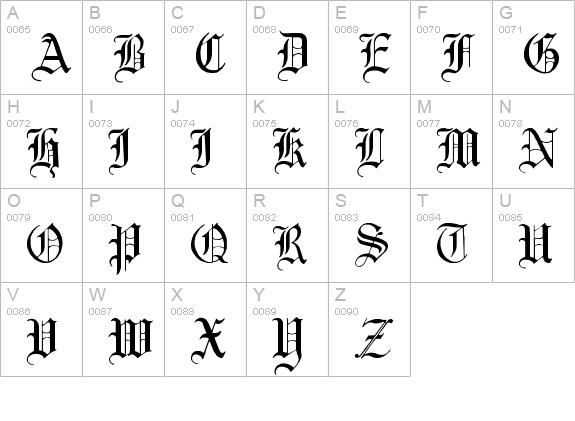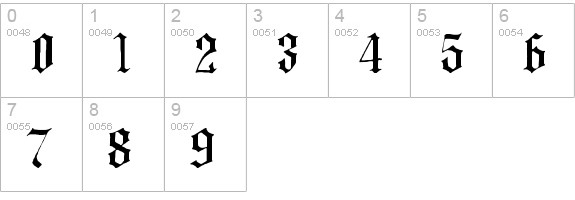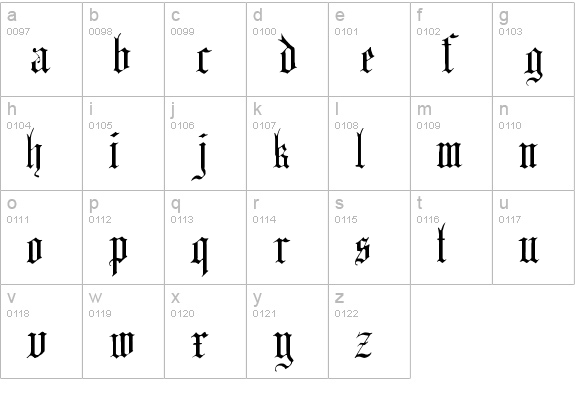
Introducing the captivating allure of English Gothic, a remarkable 17th-century font that effortlessly transports you to a bygone era of mystery and enchantment. With its intricate and ornate letterforms, this stunning typeface pays homage to the rich history of Gothic architecture and literature, evoking a sense of grandeur and elegance. Every curve and flourish in English Gothic tells a story, each letter meticulously crafted with a deep appreciation for the artistry of calligraphy. The bold strokes and delicate details seamlessly merge, creating a harmonious balance between strength and delicacy, making it the perfect choice for projects that require a touch of sophistication and a hint of drama. This timeless font offers an unrivaled versatility, effortlessly elevating any design it graces. From book covers and invitations to logos and signage, English Gothic brings an air of authenticity and a touch of the extraordinary to every project. Its versatility extends to various mediums, allowing it to seamlessly adapt to both print and digital applications. One of the most remarkable aspects of English Gothic is that it is freely available to download at FontsMarket.com. This means that you have the opportunity to harness the power of this captivating font without any restrictions, allowing your creativity to flow freely. Whether you are a professional designer or an aspiring artist, English Gothic offers you a chance to explore boundless possibilities and create truly memorable designs. Embrace the allure of the past while embracing the freedom of the present with English Gothic. Let this extraordinary font transport you to a world of timeless beauty and unleash your creativity like never before. Download English Gothic for free at FontsMarket.com and embark on a journey of artistic expression that knows no bounds.